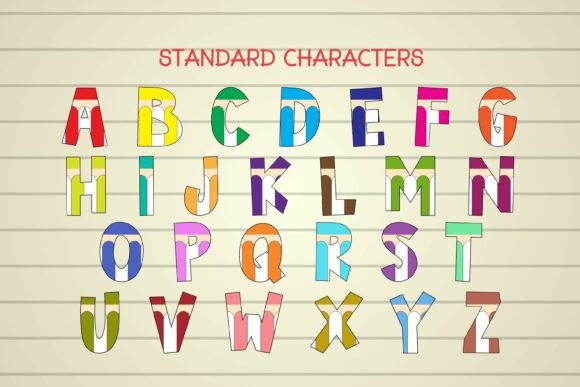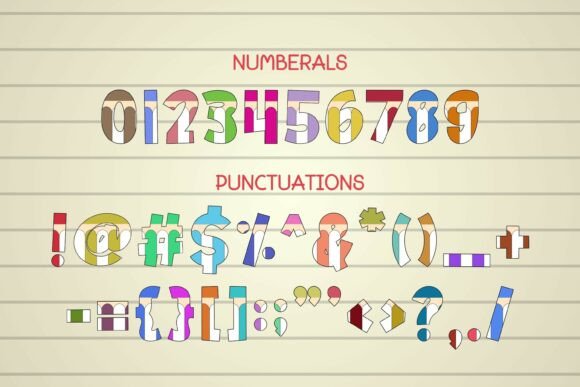
Color Pencils Font – Free Download
Introduction to Color Pencils Font
The Color Pencils font is a playful and vibrant color font designed to mimic the appearance of Color Pencils.
| 👤 Author | Adalin Digital |
Ideal for educational materials, children’s designs, posters, bulletin boards, school projects, and playful branding, Color Pencils bring instant visual interest and personality It is provided in multiple formats—including OTF, TTF, WOFF, SVG, and transparent PNG—for broad compatibility across both print and digital platforms.
Key Features of Color Pencils Font
Why Choose Color Pencils Font?